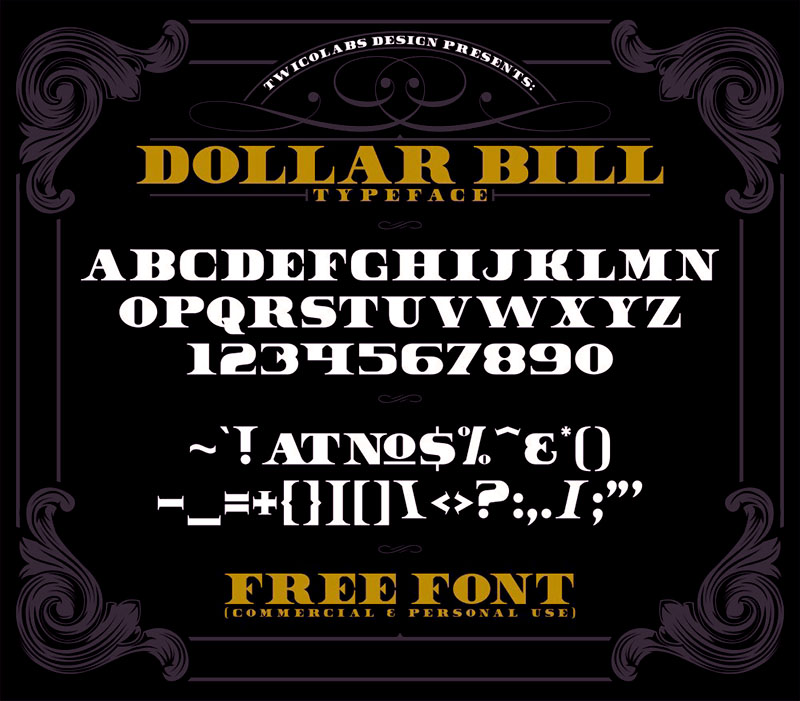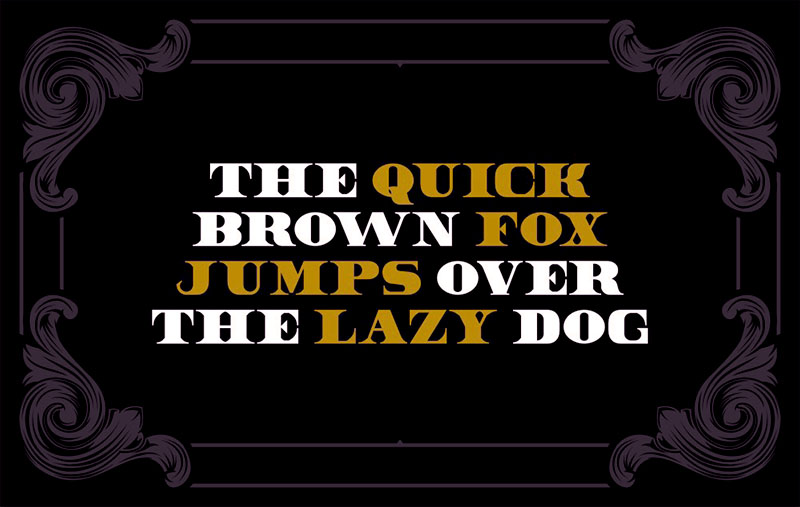
Dollar Bill – Free Bold Font
This retro style and bold custom font is from Twicolabs. An all caps font / typeface that borrowed the letter from the money (dollar) and bank certificates. Also contained numerals and punctuations characters. Download and enjoy 😉